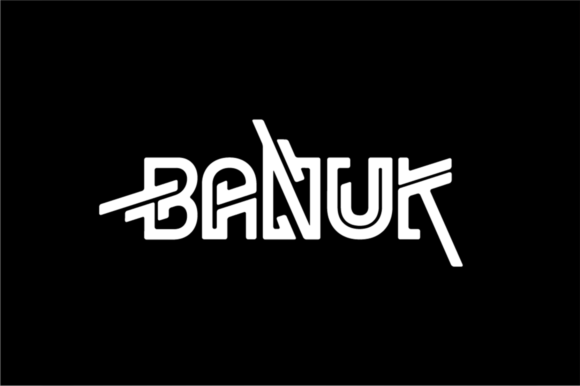
Prepare to be mesmerized by Banuk Font, the epitome of creativity in the realm of display boards. This techno font, meticulously crafted by the talented hands at Grontype, will ignite your imagination and transform your designs into captivating masterpieces.
Banuk's essence lies in its slanted line accent, a stroke of brilliance that adds a touch of dynamism and energy to every letterform. The rounded edges and carefully calculated spacing between characters create a visually appealing harmony that invites readers to delve deeper into your message.
Unleash the boundless potential of Banuk Font in your projects. Emblazon your logos and flyers with a captivating header, ensuring your message stands out from the crowd. Create eye-catching name cards that leave a lasting impression, or craft elegant invitations that promise an unforgettable experience.
Let Banuk Font take center stage on your movie posters and posters, capturing attention and setting the tone for an immersive cinematic journey. Use it to craft compelling website headers that draw visitors in and leave them eager to explore your digital domain.
With Banuk Font at your fingertips, the possibilities are limitless. Its versatility extends to various design applications, making it the perfect choice for tech-savvy individuals, creative professionals, and design enthusiasts alike. Embrace Banuk Font and elevate your designs to new heights of excellence.